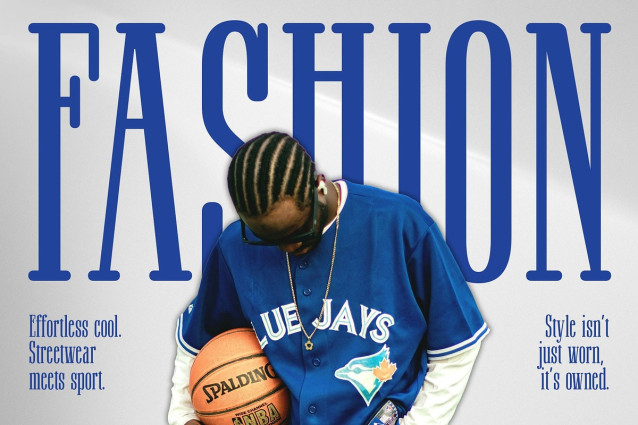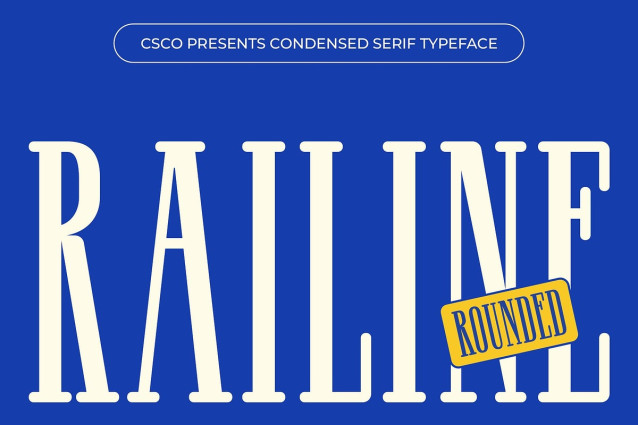
Railine Rounded Font
Railine Rounded Font is a classic retro serif font that blends vintage sophistication with modern design sensibilities. Its condensed letterforms are tall and slim, offering a refined, space-efficient layout that retains excellent readability. The clean serif structure is inspired by traditional typography, giving it a timeless, editorial feel that effortlessly evokes mid-century charm.
Soft Rounded Corners for Warmth What makes Railine Rounded truly stand out is its softly rounded terminals, which smooth out the sharpness often found in traditional serif fonts. These gentle curves lend a friendly, polished character, softening the overall appearance and giving the font a more approachable, casual tone while still maintaining elegance.
Versatile for Nostalgic and Contemporary Uses Railine Rounded is the perfect typeface for retro-inspired branding, vintage posters, editorials, and product packaging that wants to reference the past while staying relevant to today’s trends. Its mix of historical charm and fresh design makes it suitable for both creative storytelling and professional identity building.
The Best of Both Worlds: Heritage Meets Clarity Whether used in display headlines, logos, or stylish merchandise, Railine Rounded strikes a unique balance between classic serif beauty and modern-day functionality. It’s a font that speaks to audiences seeking depth, emotion, and stylish simplicity—ideal for brands that want to feel established yet contemporary, nostalgic yet forward-looking.